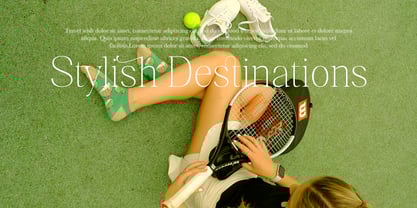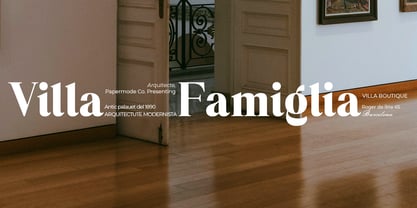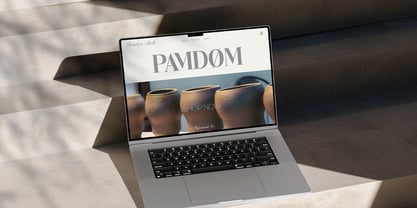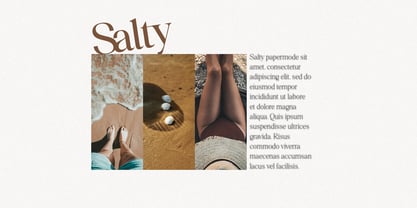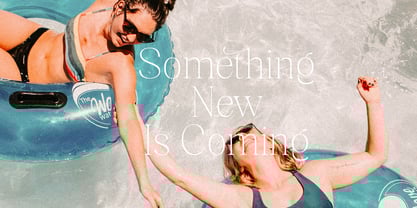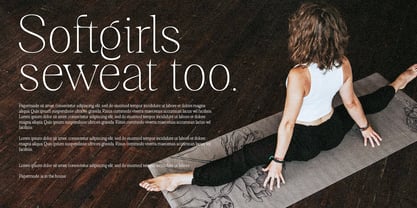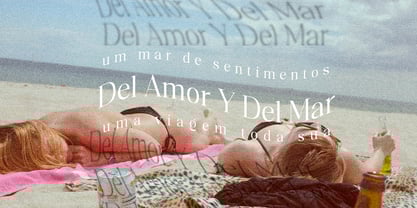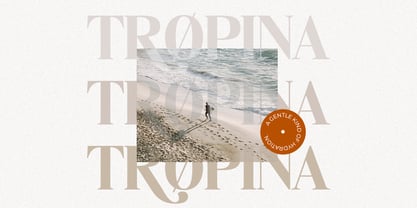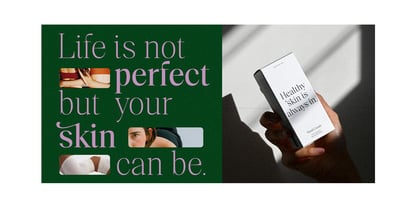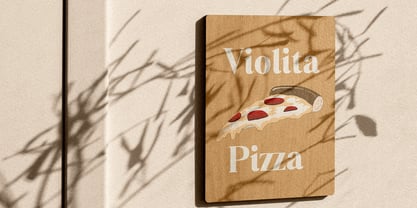
Pigaty
by Papermode Co
The Pigaty Font Family was designed by Mira Kartika Sari and published by Papermode Co. Pigaty contains 9 styles and family package options. More about this family
Pigety is a new decorative font family. This font has a very beautiful and elegant opentype feature, so it can make users happy and can increase creativity or productivity, you can use this font very easily.
Try Pigety, enjoy the richness of OpenType features and let her fun and elegant excitement make you happy and enhance your creativity! You can use this font very easily.
Designers: Mira Kartika Sari
Foundry: Papermode Co